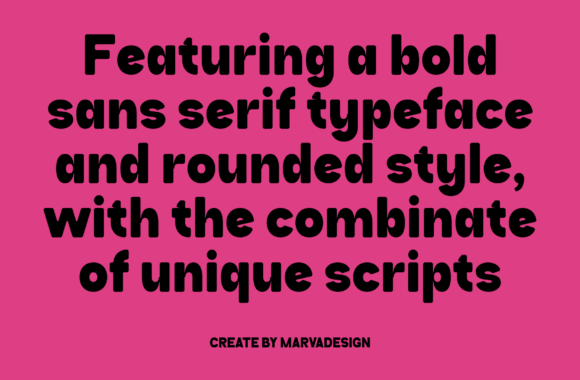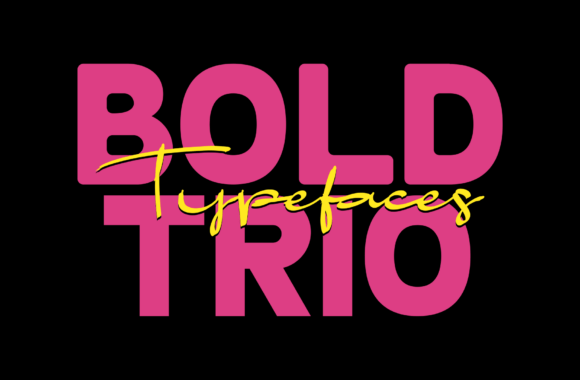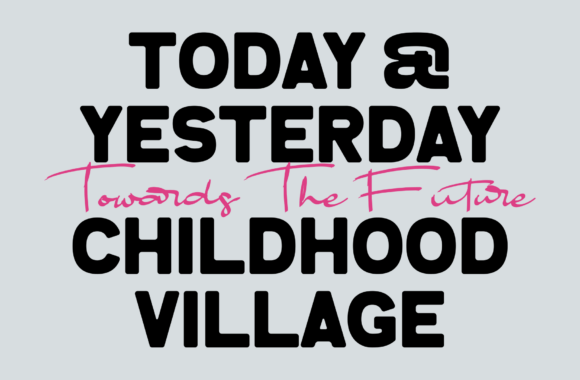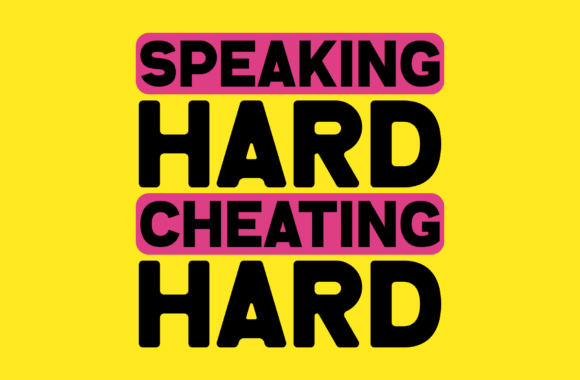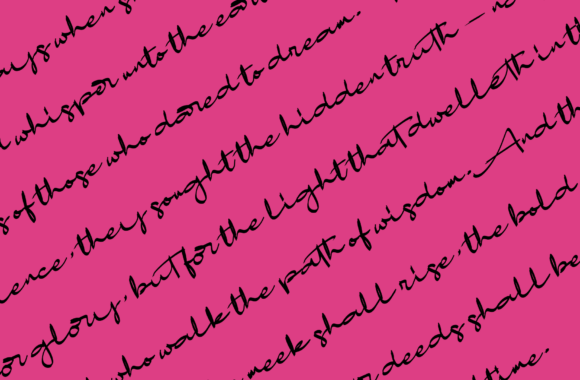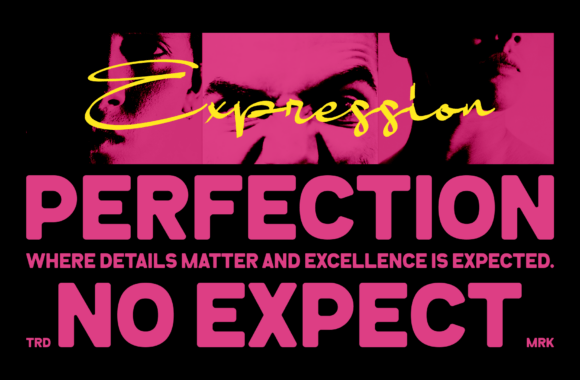
Introduction to Letherale Font
**Introducing Font Trio Family Bold** **Letherale** is a distinctive and modern typeface that combines three bold, rounded, and expressive script sans serif visual styles to create a versatile and dynamic typographic system.
The typeface has a strong and confident sans serif base with smooth, rounded edges, making it ideal for impactful headlines and branding Its signature touch lies in the stylized handwritten script, which contrasts beautifully against the geometric weight of the sans elements, offering elegance and personality.